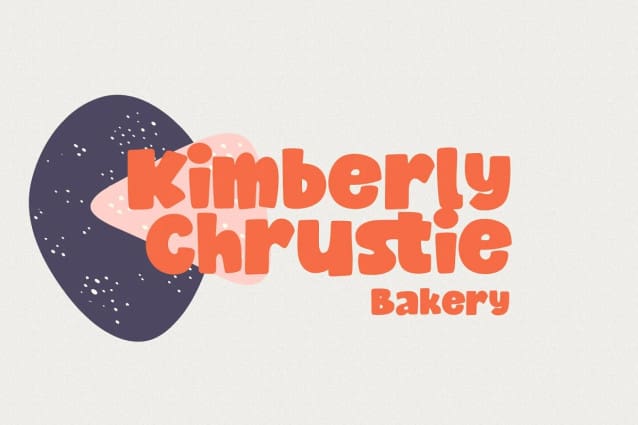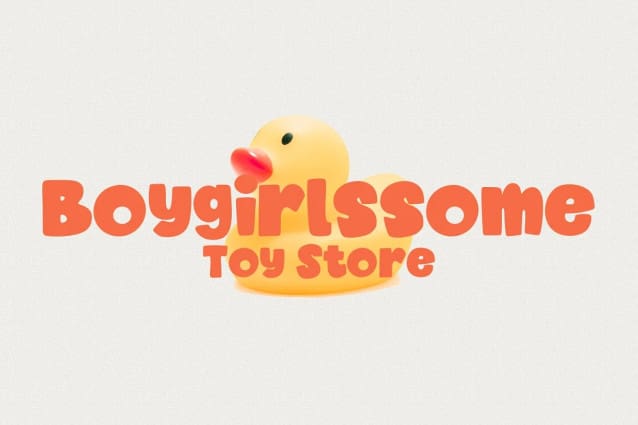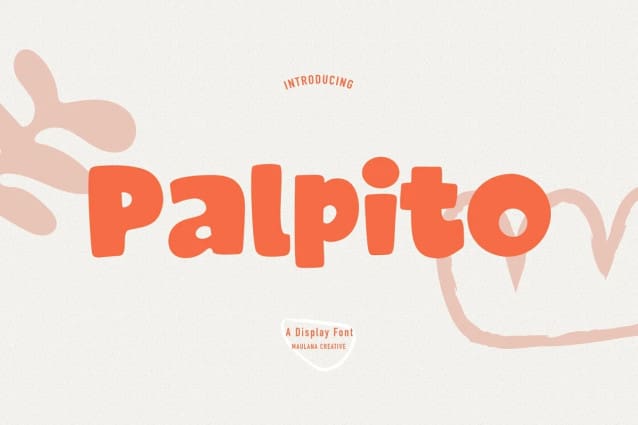
Palpito Display Font
Palpito Display Font, is a casual handwritten font. With rough stroke, Condensed and fun character with a bit of ligatures. To give you an extra creative work.
Palpito Display Font support multilingual more than 100+ language. This font is good for logo design, Social media, Movie Titles, Books Titles, a short text even a long text letter and good for your secondary text font with sans or serif. Make a stunning work with Palpito font.